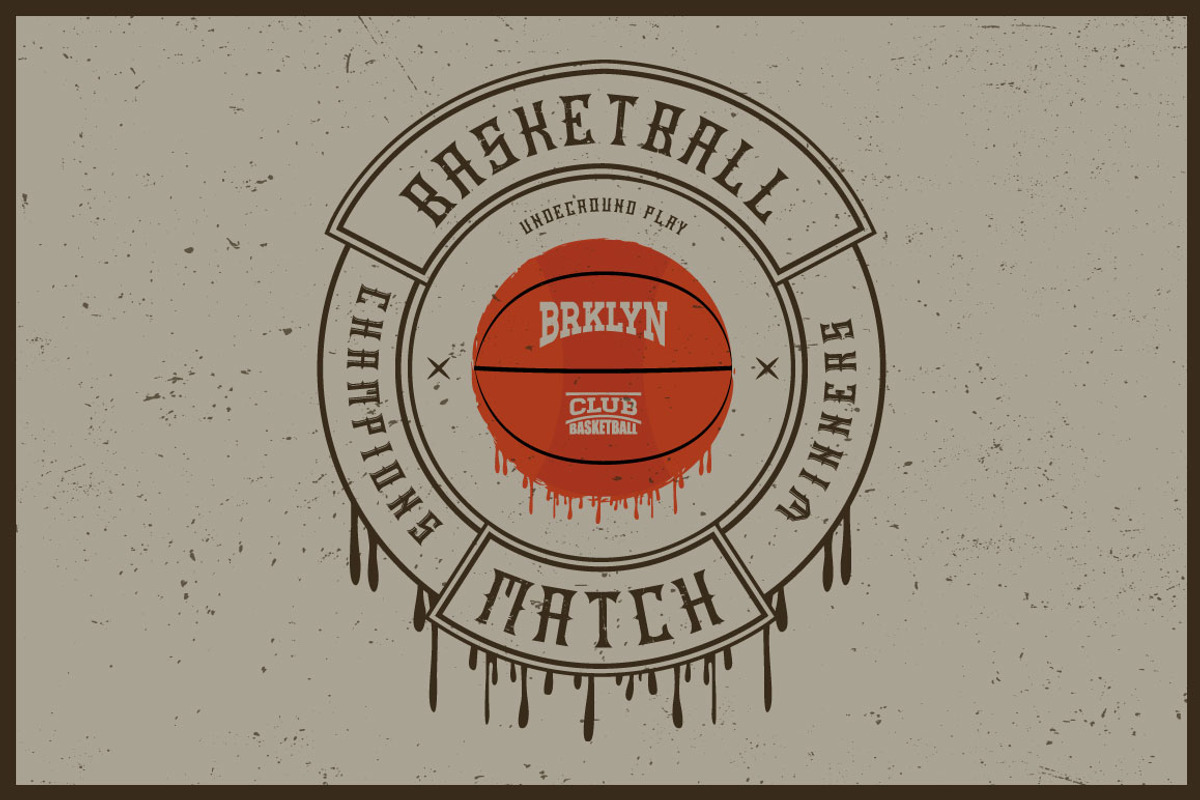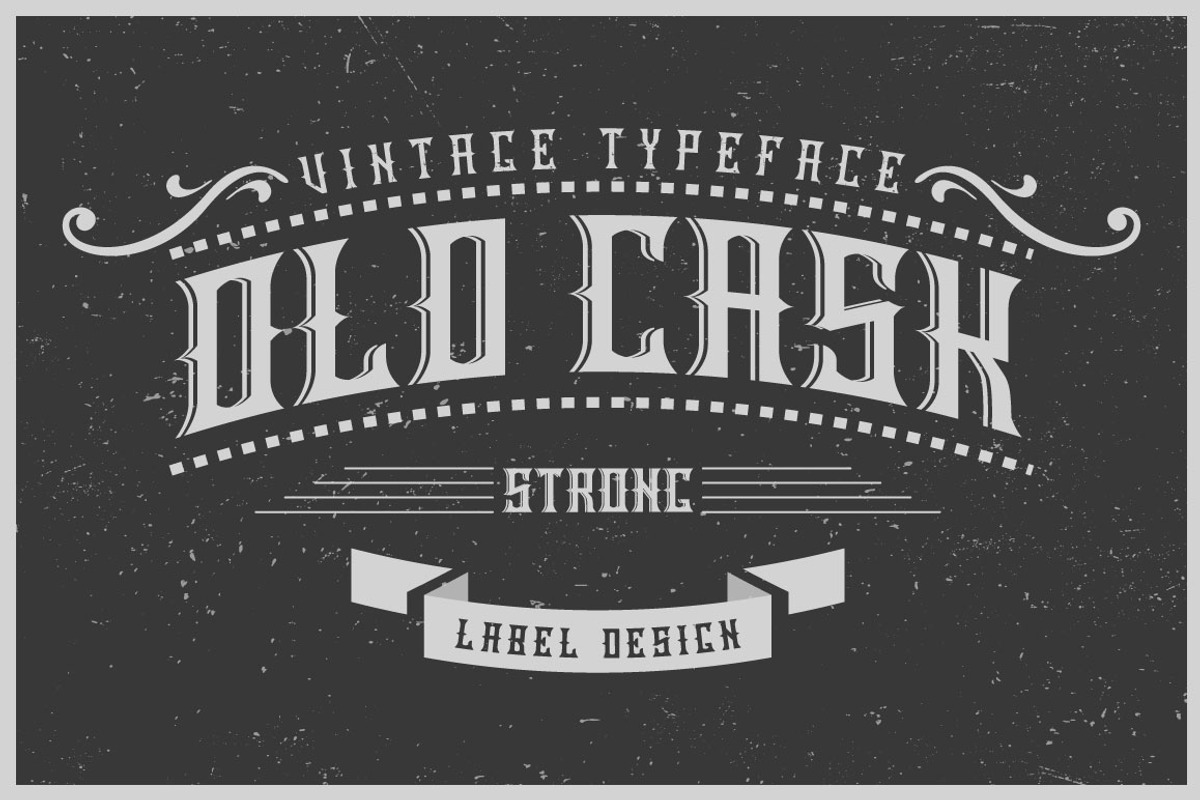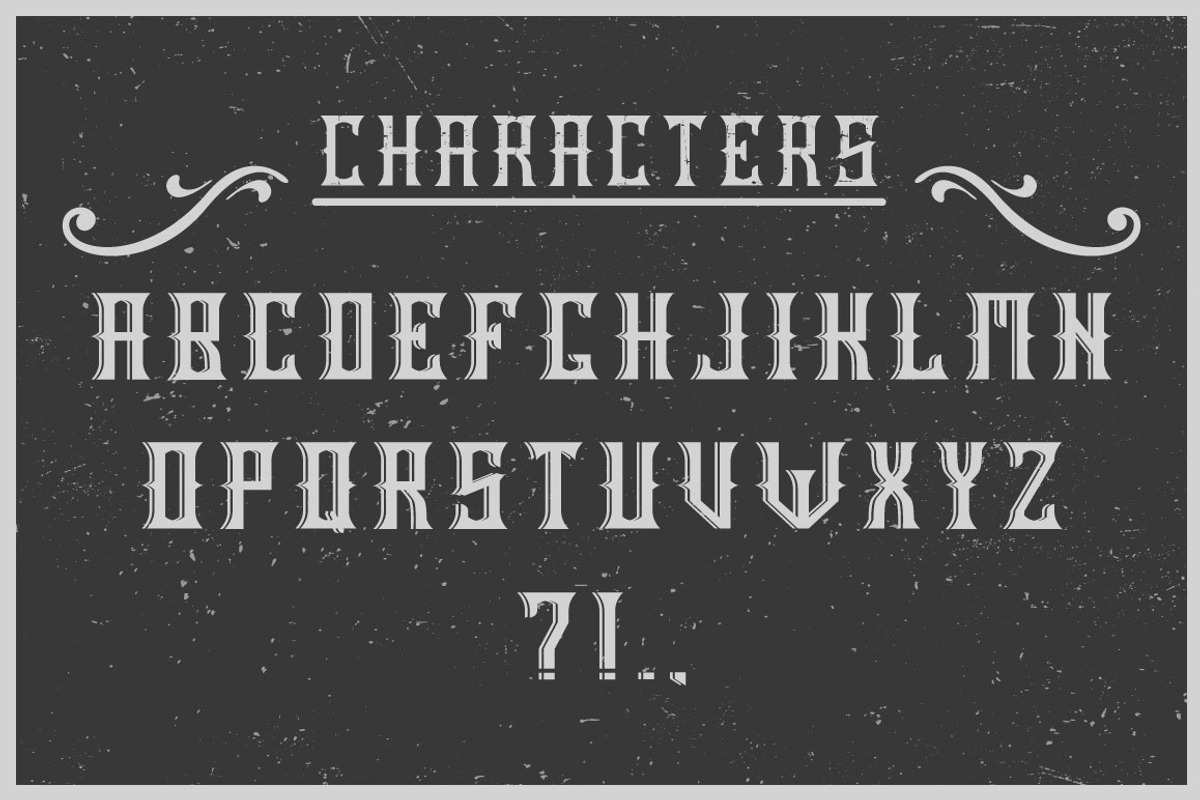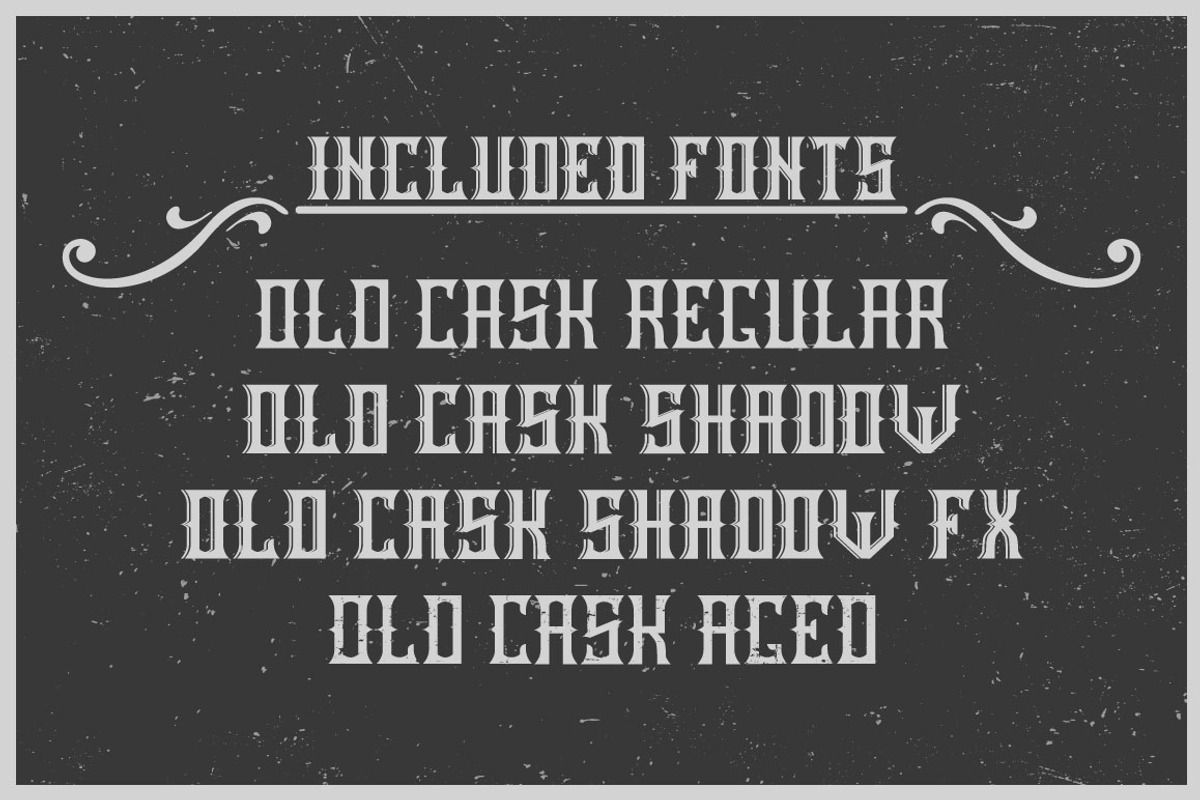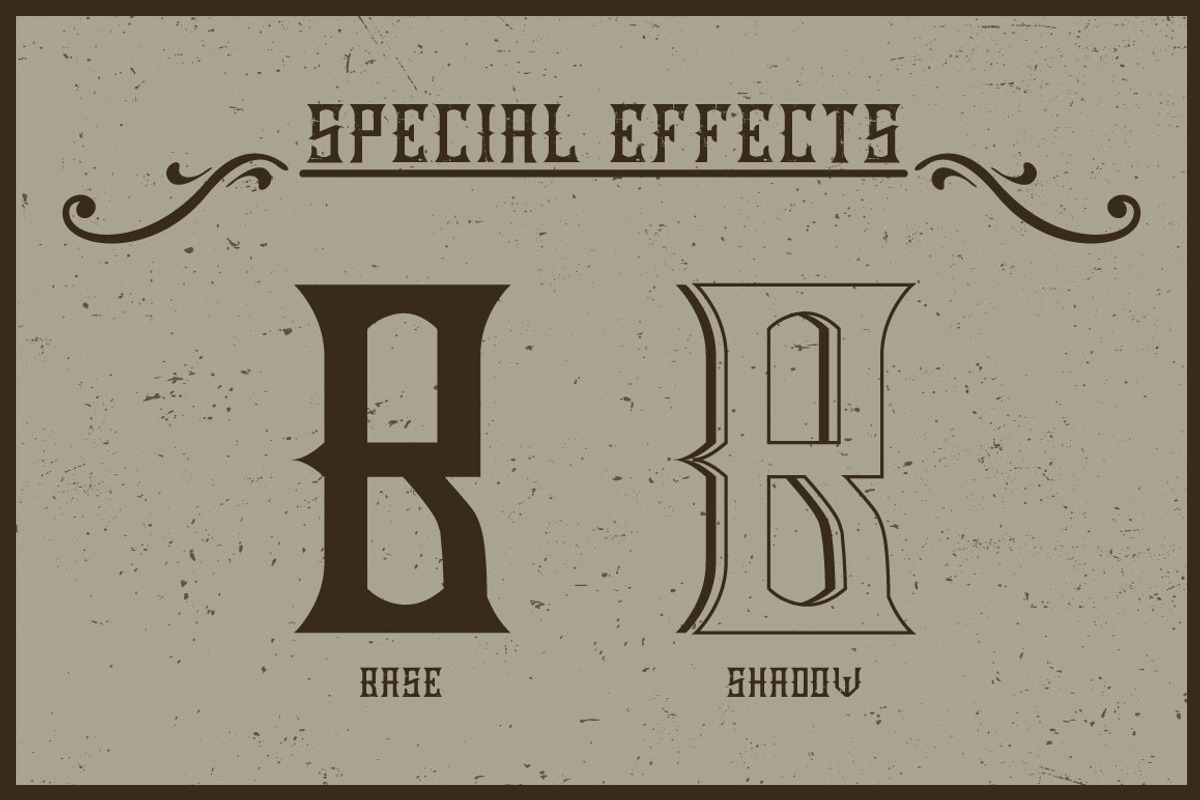
Handcrafted Old Cask label font
Handcrafted Old Cask label font by Heatherinsane is a font selected for branding, posters, packaging, typography.
- 4 fonts in complect with special effects
- You can mix shadow effect as shown at 4-th screenshot
Why Handcrafted Old Cask label font is worth a look
Handcrafted Old Cask label font by Heatherinsane fits naturally into Branding, posters, packaging, typography.